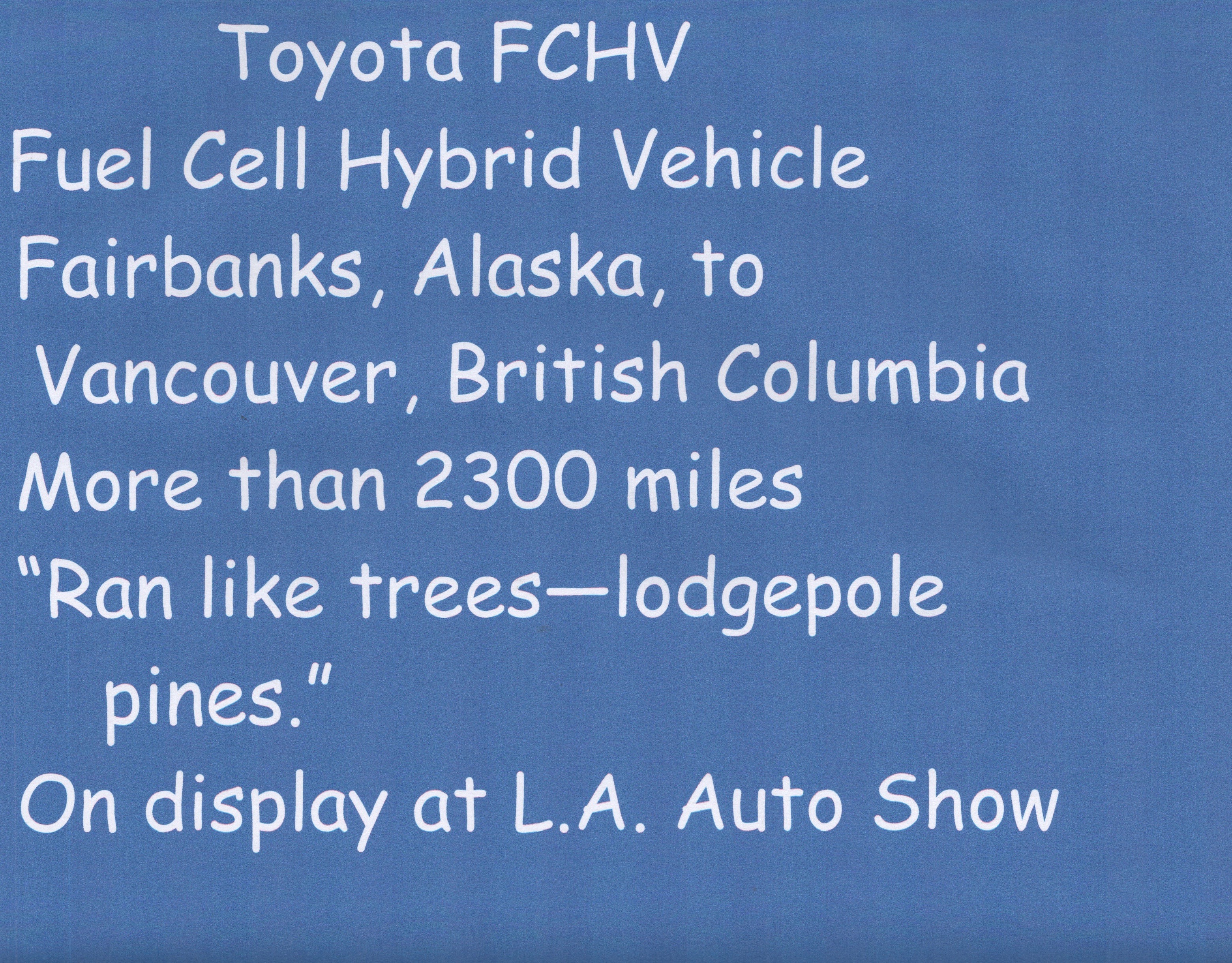
A TYPEFACE GETTING NO RESPECT
THE POINT OF putting a thought into print is to preserve and share it. The choice of typography (this word from the Greek: loosely “an impression pictured”) is a complex one. But for a balance of clarity and style, I’m here to say “Hurrah for Comic Sans Serif!”
Surprisingly, this is something of a controversial stance.
Even Microsoft designer Vincent Connare, the inventor of Comic Sans Serif, has said, “If you love Comic Sans you don’t know much about typography,” softened a bit by, “And if you hate Comic Sans you need a new hobby.”
Emma Goldberg adds to this with “Hating Comic Sans is Not a Personality,” in The New York Times, October 9, 2019.
Goldberg writes, “Of all things people love to hate—Mondays, the Kardashians, candy corn, Nickelback—few evoke the scorn and indignation of what Mr. Connare affectionately calls ‘the Justin Bieber of fonts.’ ”
Ouch.
Here are Comic Sans Serif tidbits gleaned from her article, my usual Internet sleuthing, and use of this typeface in my own presentations at technical conferences.
Connare’s Goal. When the company was devising Microsoft Bob and his dog Rover in 1994, type designer Vincent Connare cogently observed, “Dogs don’t talk in Times New Roman.”
Times New Roman, like many typefaces, has serifs, those elaborate little flourishes that are missing in Sans Serif typefaces. (Sans, from the French, “without.”)
Vincent Connare, Boston-born 1960, British-American type designer and former Microsoft employee.
If you’re searching for a deep meaning in this, I remind you of Connare’s line about getting a new hobby.
A “Fun-Times Font.” Paige Shelton is the author of Comic Sans Murder,
a mystery set in a typewriter repair shop with a resident cat named Baskerville.
Goldberg notes, “Comic Sans is what Ms. Shelton calls ‘a fun-times font,’ manspreading across paper in strokes thicker than fair Cambria or no-nonsense Garamond.”
Typographic Backlash Comic Sans Serif is disliked by some with almost Puritanical fervor. Others merely note its inappropriateness in certain writing.
Goldberg observes, “The website Comic Sans Criminal allows people to report its inappropriate uses (see: a sex offender registry, a doctor’s diagnosis).”
Granted. Though I also note that this website’s choice of primary typeface is another sans serif font, one that’s rigidly vertical and, to my eye, a bit stodgy.
A Political Message? “The depth of the internet’s distaste for Comic Sans,” Goldberg writes, “was on full display this week, when an attorney representing two of Rudy Giuliani’s associates informed Congress that his clients wouldn’t comply with the impeachment inquiry demands, with a letter printed in that widely derided type.”
Given the circus playing Washington, D.C., at the moment, I might have sent the letter in P.T. Barnum.
In Comic Sans Serif’s Defense. I’ve given more than a few technical presentations at SAE International and other organizations. And my typeface of choice for these illustrated PowerPoint presentations is, you guessed it, Comic Sans Serif.
It’s the opposite of a guy opening his talk with densely unreadable visuals as he drones, “We’ve got a lot to cover, so….”
Gee, just what we need. This session has been three hours already.
Images from “A Journalist’s Comments on Hybrids (Redux),” presented at the SAE Hybrid Vehicle Technologies 2008 Symposium, San Diego, California, February 2008.
By contrast, Comic Sans Serif is clear and readable. It says, “Relax. This may get technical here and there, but it might well be of interest to you.”